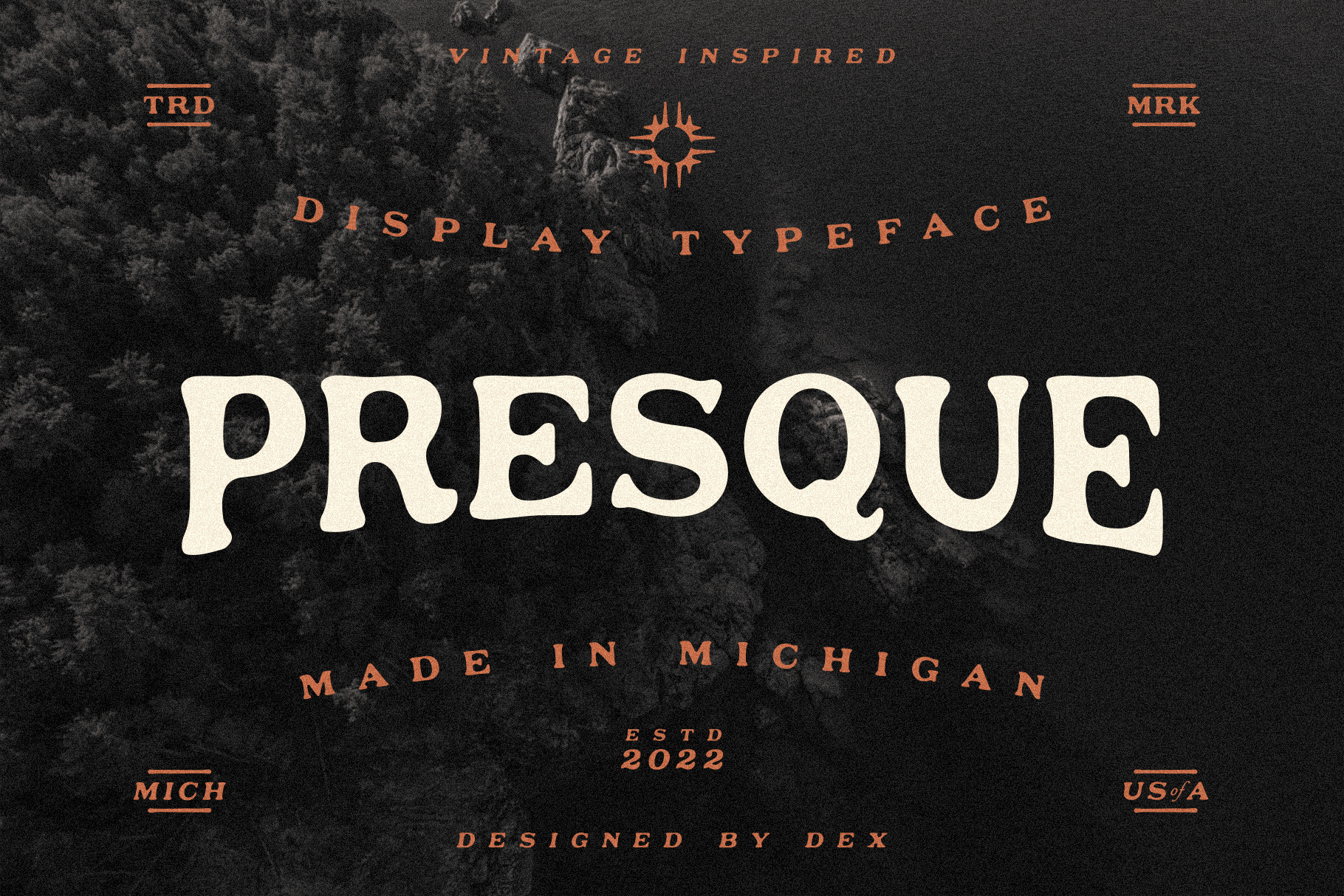
Presque Typeface
Presque is inspired by the big water of Lake Superior, or as the Ojibwe called it, gichi-gami. The weathered land and rugged coastline offered little in the way of leisure for those here long ago. The rounded rocks, and wind battered signs. The ebb and flow of the water, and the slowly decaying remnants of a bygone industry. These are the things in which Presque was forged. It never battened down the hatches and never turned its back. It’s weathered and worn and proud.
Presque Oblique